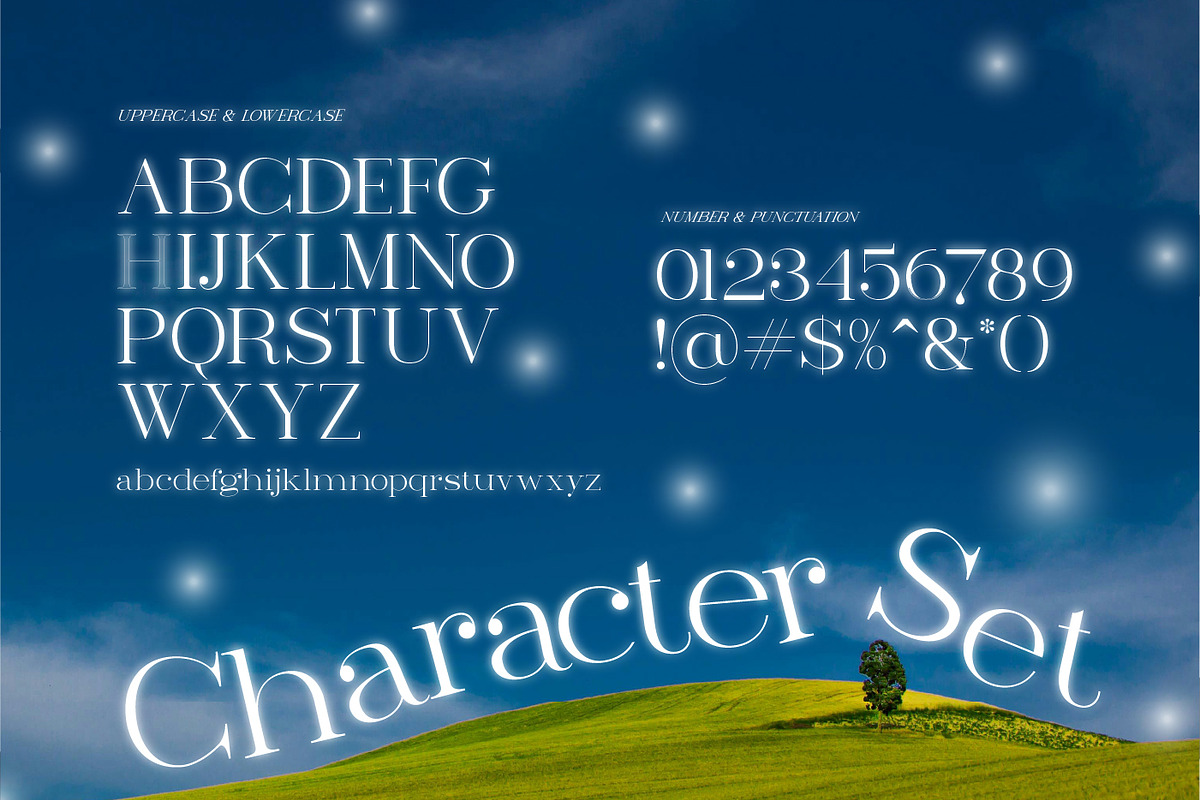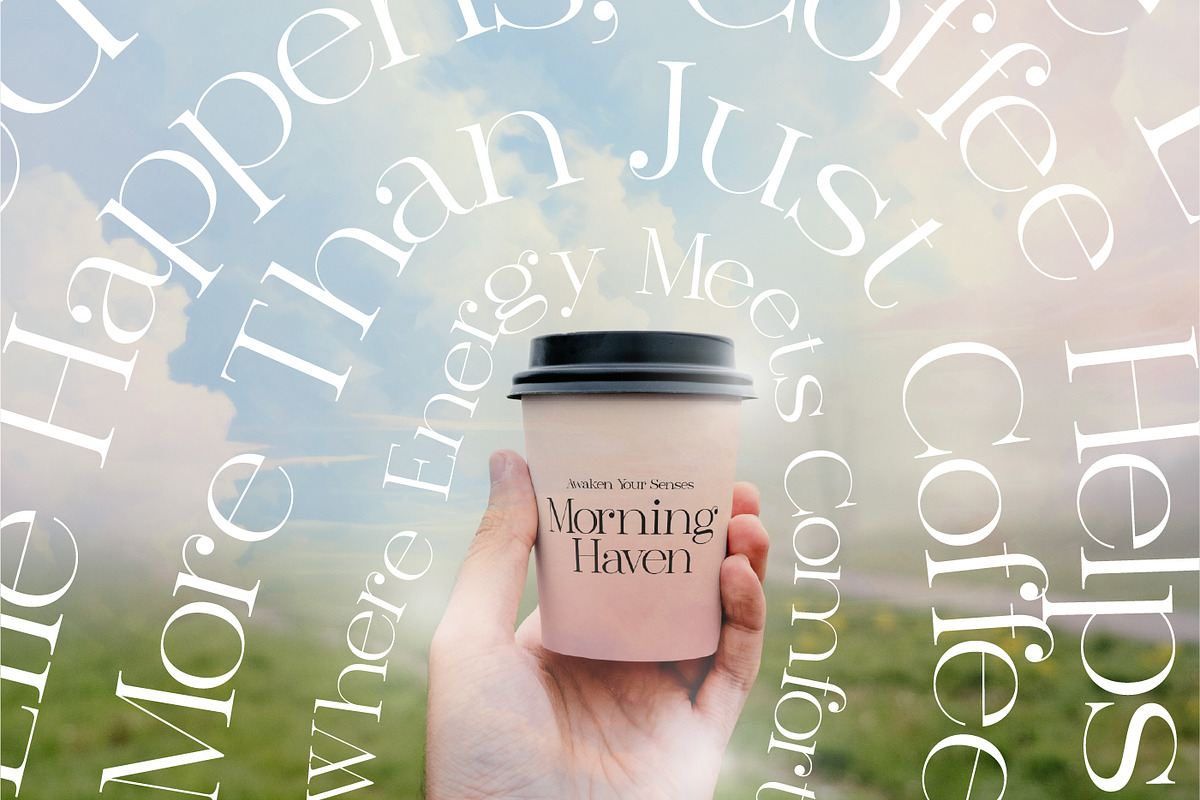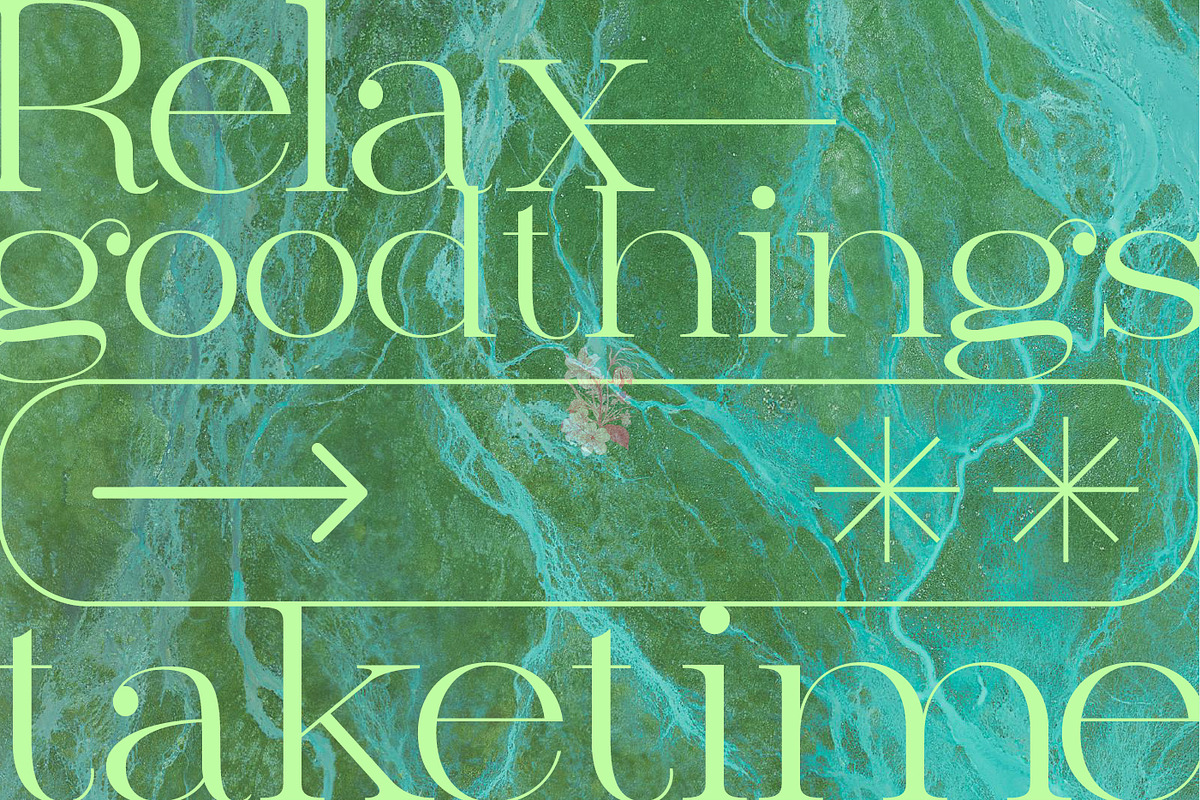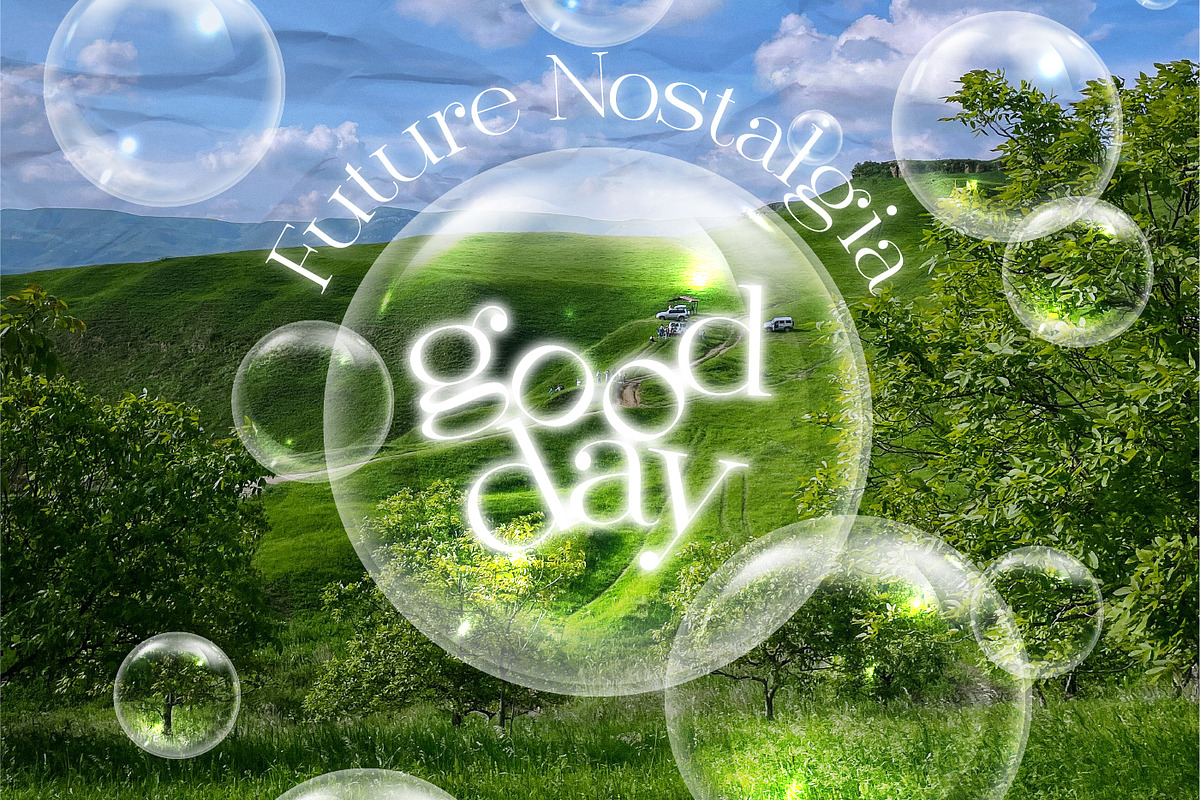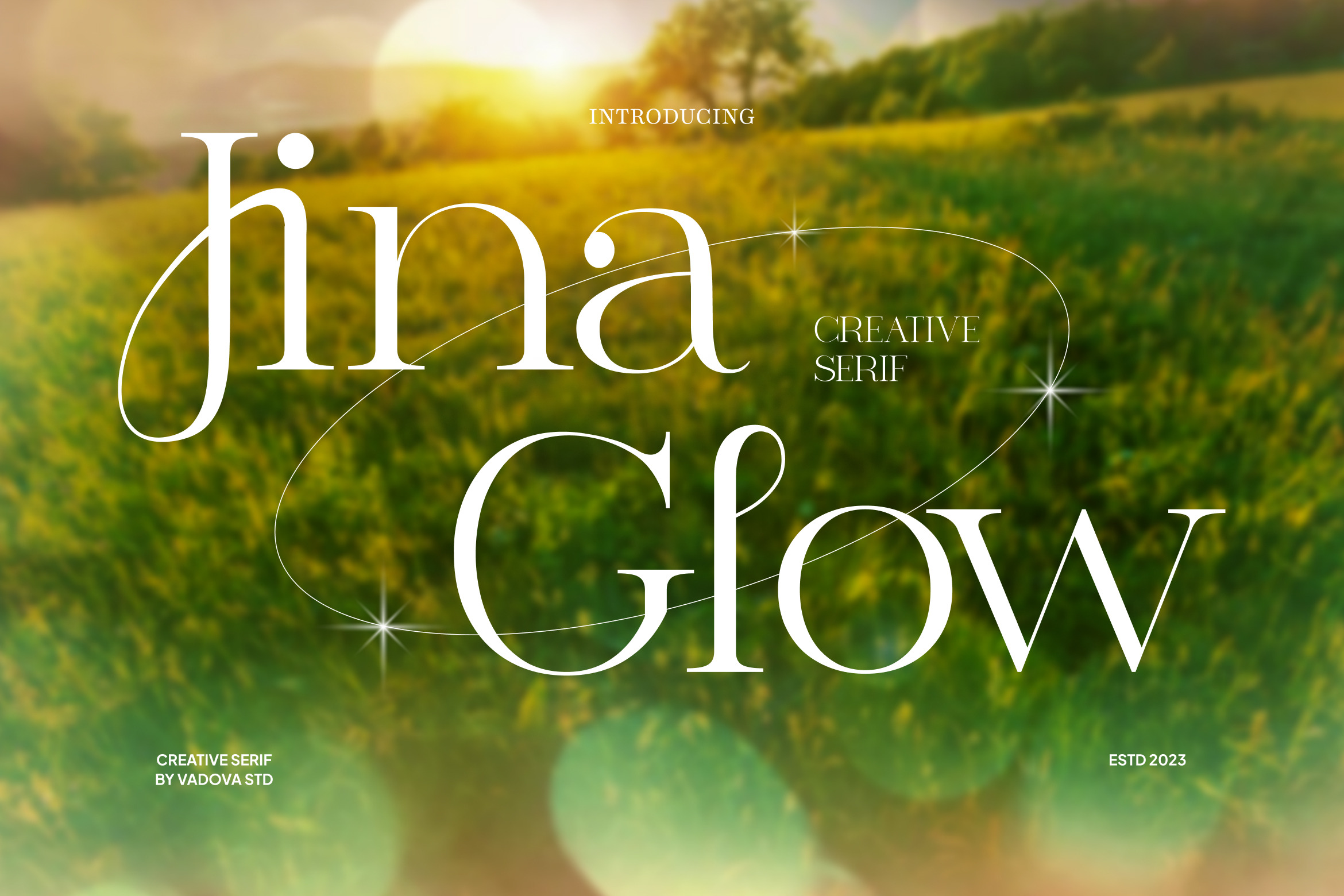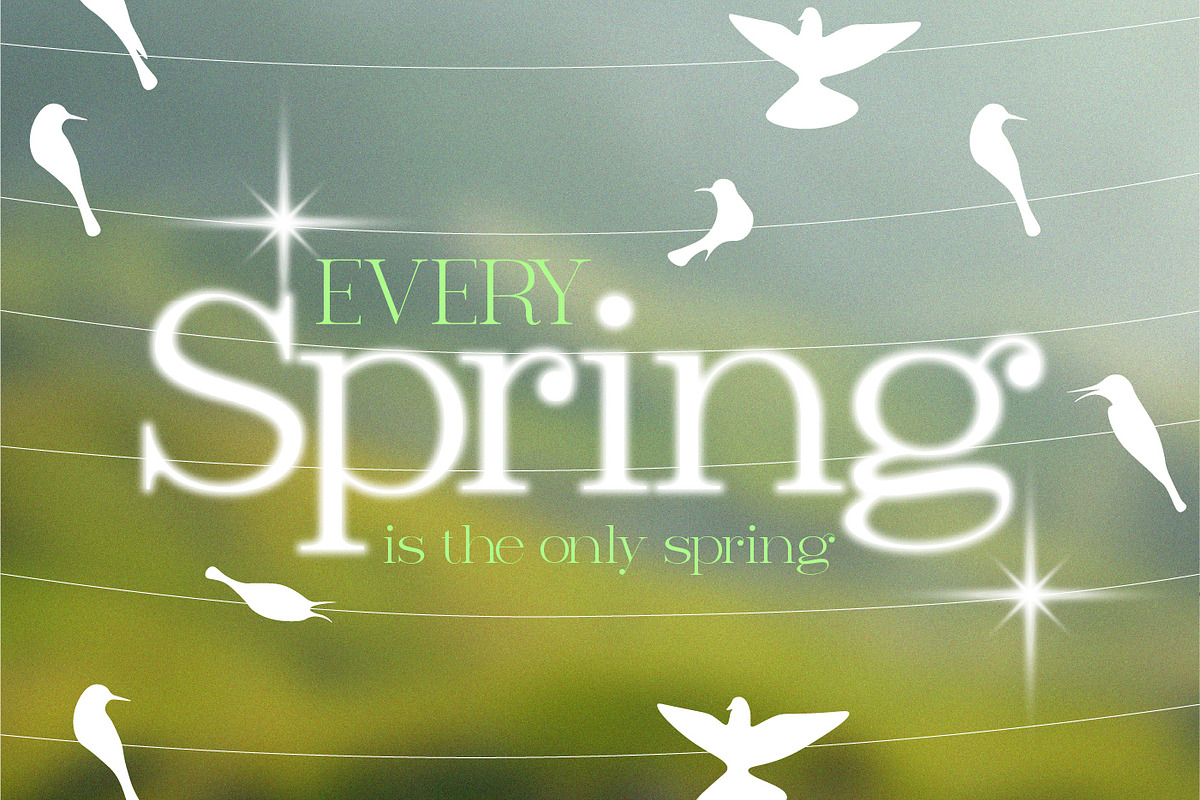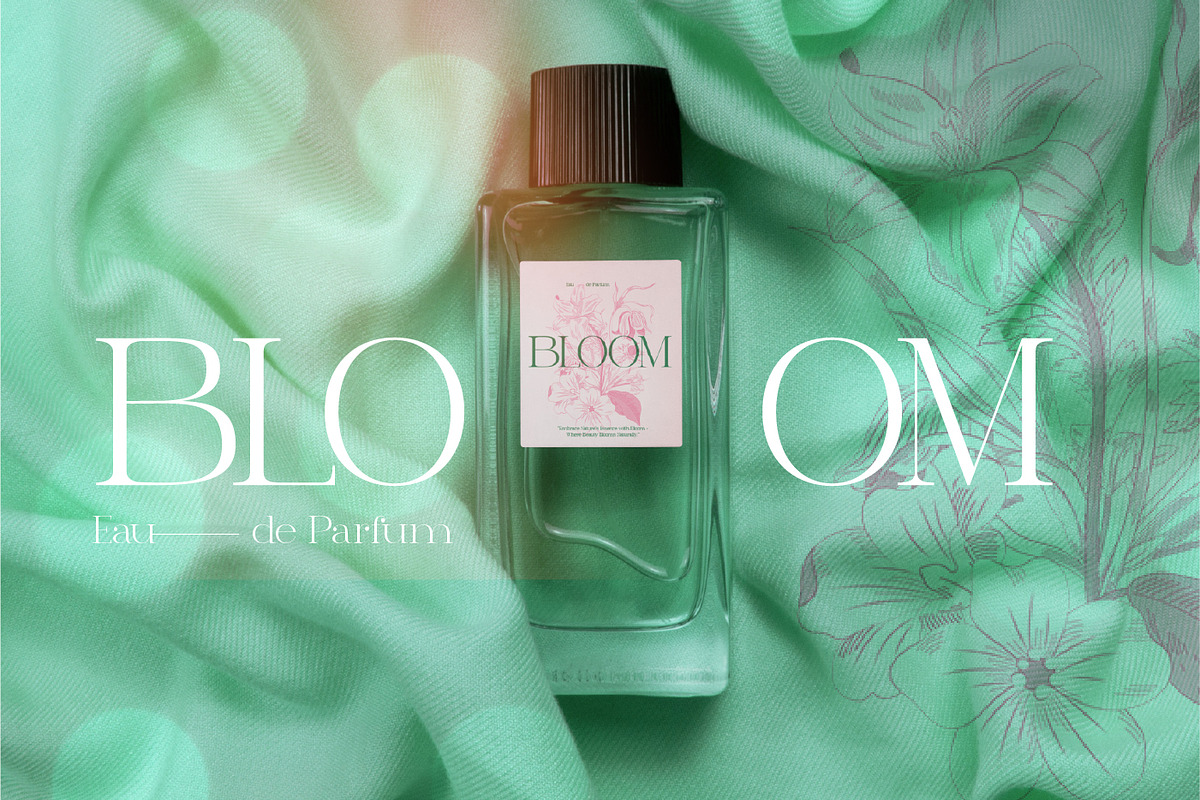
Jina Glow Serif Font
Jina Glow is a modern creative serif typeface designed to exude elegance, grace, and visual charm across a wide range of design applications. Meticulously crafted with high-contrast strokes, refined serif detailing, and fluid curves, Jina Glow reflects a harmonious fusion of classic beauty and contemporary sensibility. Its sophisticated design language features unique terminals, slender proportions, and an airy structure that enhances both visual impact and readability, making it equally suitable for luxurious headlines and delicate editorial content.
Whether you're designing fashion lookbooks, perfume labels, magazine covers, wedding invitations, upscale packaging, or digital content for high-end clients, Jina Glow adapts beautifully. Its versatility lies in the ability to convey both creativity and formality, allowing designers to evoke emotions of warmth, trust, and premium quality in their visual communication.
- High-contrast modern serif structure with elegant proportions
- Subtle calligraphic strokes and refined serif curves for artistic flair
- Delicate swashes and smooth transitions for graceful movement
- Balanced spacing and clean vertical rhythm for improved readability
- Full character set with multilingual support for global versatility
- Luxury branding and high-end logo design with a stylish flair
- Editorial layouts for fashion, beauty, and lifestyle publications
- Elegant packaging for cosmetics, fragrance, or boutique products
- Wedding invitations, event stationery, and personal branding kits
- Social media posts, quote graphics, and promotional materials
Add a touch of refined charm to your visuals with Jina Glow’s stylish serif expression